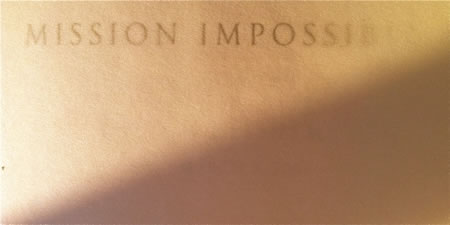
Customized, illustrative typographic design for motion picture titling design.
First off, to clarify, we didn’t work on Ghost Protocol, out today — but seeing the opening campaign, as well as the film launch in Dubai (and working there reminded me of earlier efforts — creating at the start, to define brand style for Mission: Impossible.
In the beginning, it was reaching into the soul of the legacy story, and looking for new interpretations — working with the Paramount Studios marketing and theatrical advertising teams, in forging the opening approaches to strategic brand look and feel.
And that is:
condensed
modernist
fast
stencilled
mechanized
adrenalized
There’s one part of the Girvin legacy that is spectacularly antiquated.
It’s about the hand.
And the work that comes from it.
And it goes right back to the roots of the founding of Girvin — and before that, Alphabetica (my letter making firm when I was in college). That is an early and still held belief that logo typography needs to be entirely customized, built by hand, and taken digitally to computer applications. Every logo that we build starts with that proposition, that designing an identity is a closely practiced study — linked entirely to the nature of the personality, the story and audience of the experiencer. As has been pointed out in the past, that idea of illustration and interpretation in typography links to the nature of drawing soul — everything can be tuned and marked in the character of the core message of an identity treatment; type is how logos are read — it is, indeed, the “title” of the story. Even with thousands of interpretations of the alphabet’s design, still we start with the idea of creating foundational fonts that build these tactical attributes.
Working for decades in the motion picture business, as strategists, writers and designers, we’ve worked for mostly studios — Paramount and Warner Brothers in particular, some specialist advertising agencies in the motion picture marketing arena, and directors, producers, agents and theatrical stars.
Like Tom Cruise.
Our first connection, decades back, was Paramount Studios “Top Gun” — and this link was through Don Simpson and Jerry Bruckheimer — as producers; run through the directorial management of the creative lensing of Tony Scott, Ridley’s brother. That connection later led to “Days of Thunder.” Also directed by Mr. Scott, and produced by Simpson Bruckheimer — in another string, we worked as design consultants to them as well.
And a string of titles after that, out to consulting on Valkyrie — but it was the Mission series that involved a more close link between the design sentiments of a star or director and the visualization outcomes. That takes time — it’s not one conceptual or stylistic movement, but many — it’s not one idea, but a complex intermixing of many collaborations and explorations — then, finally, the gradated arrival at a solution set, then finally to the launch program.
Identity, in motion pictures, is one of the longest lasting sentiments of memory and experience; it is the title. To priority — then (and perhaps at the same time) the stars in tandem, then the overall visual strategy of the posters. Movie posters are thematic — and oftentimes, with the star arrays, the big heads, the bold colors, it can be hard to sort one to another — they can be similarly styled in character.
But in the Mission series, the idea was for our team to set the opening styling of the titling identity. That was the mid nineties — and, in our roles as designers and brand stylists — we built the opening accepted potential for the Mission: Impossible brand frame in identity. We come in — work in Los Angeles — and go. From there, implementation and continued evolution might happen.
Some screen grabs, iPhone shots of our earlier defining efforts, to the styling of Mission: Impossible identity, the kick off to the new brand, 1995.
A gallery of early design foundations:
Mission: Impossible alphabets
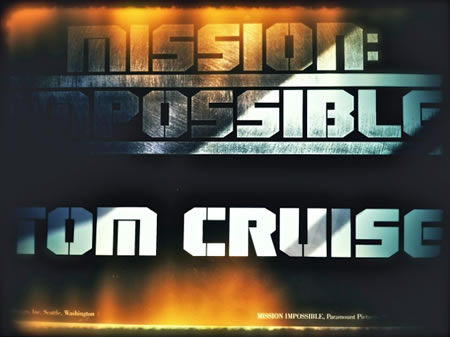
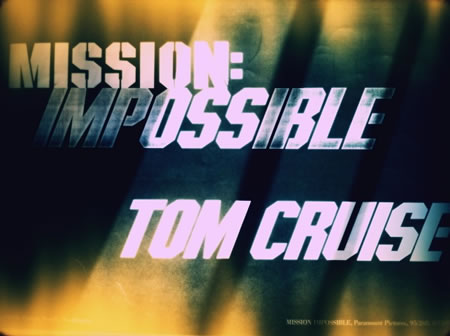
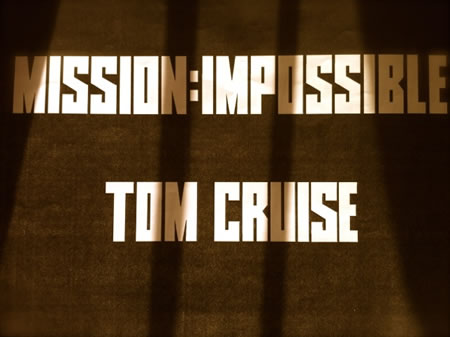
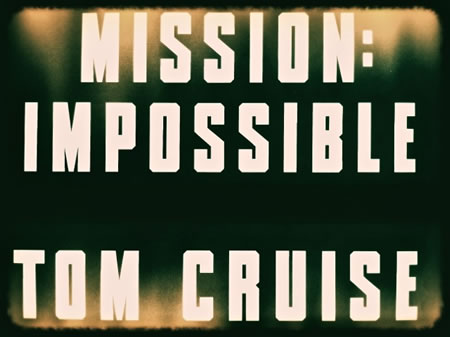
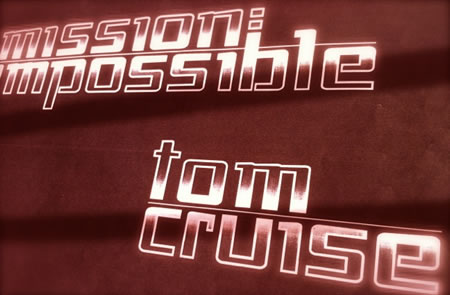
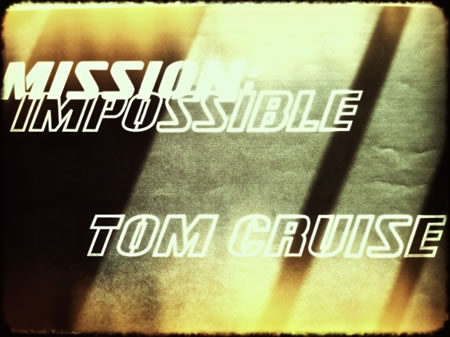
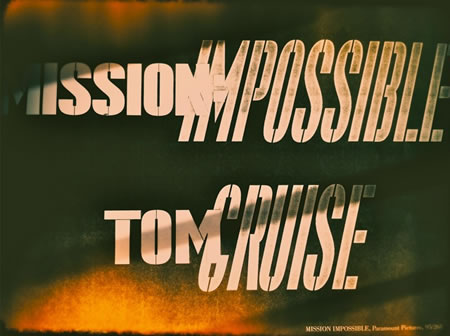
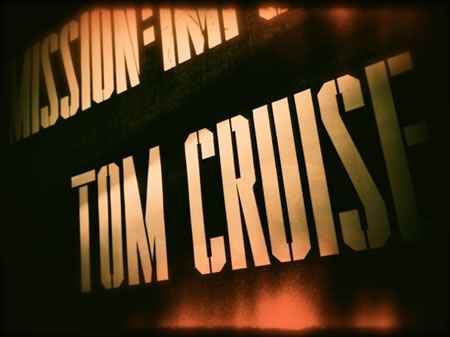
The finalized outcome — built at, and by, Paramount Studios:
condensed / stencilled / modernist / military
Several years later, the second conception of Mission: Impossible evolved, this time with the stylistic visioning of John Woo — laden with his characteristic explosive shooting style, the emergent fluttering of ghostly white doves, skull jarring hand to hand combat, ebullient chases and enthusiastic pyrotechnics. And during this effort, the idea of a coded monogram emerged — still our focus was founded in the nature of the typographic systems. The final more flattened treatment was orchestrated at Paramount Studios, their theatrical advertising department — still imbued with the sense of energy, speed and athletic power, spirited with thriller potency.
Round three of the impossible mission offers the next return to the monogrammatic coded device — and this time with specific directions and notations from Mr. Cruise, sent in faxed sketches.
Our process in creating these titling solutions runs in a series of books and digital presentations — like our opening overview for Mission: Impossible brand styling foundations.
They look, from the cover, like this:
This styling bridges to the way we present everything — using customized Girvin classical fonts.
Interestingly, the opening strategy for the titling was a bridge between Mission: Impossible and a supporting title, Mission: Impossible III / The Merchant of Chaos.
the original brandcoding:
Everything we do is about that selfsame nature of team-built solutions; it’s never about absolutely owning every story, there are many layers to the creation of the one final statement, the stake in the ground that tells all.
The creative juice is stellar — like a constellation, made of many “stars.”